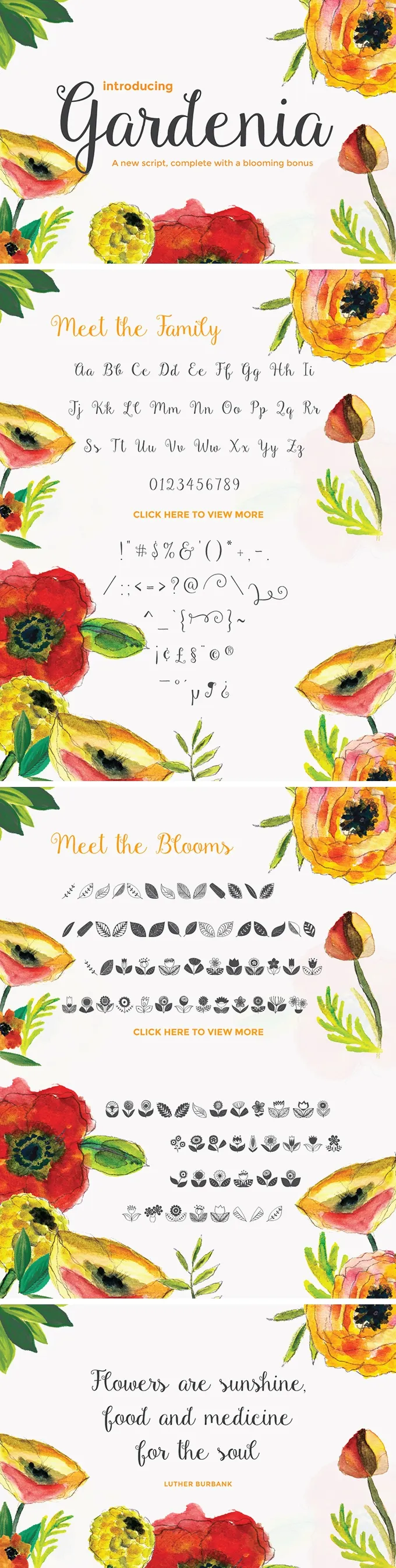
Gardenia Script Font
Inspired by the Spring, Gardenia Script is an outstanding example of tender and elegant hand-crafted typefaces perfect for almost all kinds of creative design projects.
Get ready for hours of work, because having this font will make you want to apply it almost everywhere! The archive features all popular font formats (OTF, TTF, and Web fonts), over 180 different hand-drawn characters, and also 90 hand-drawn floral ornaments. This amazing set will become a great improvement to your toolbox!